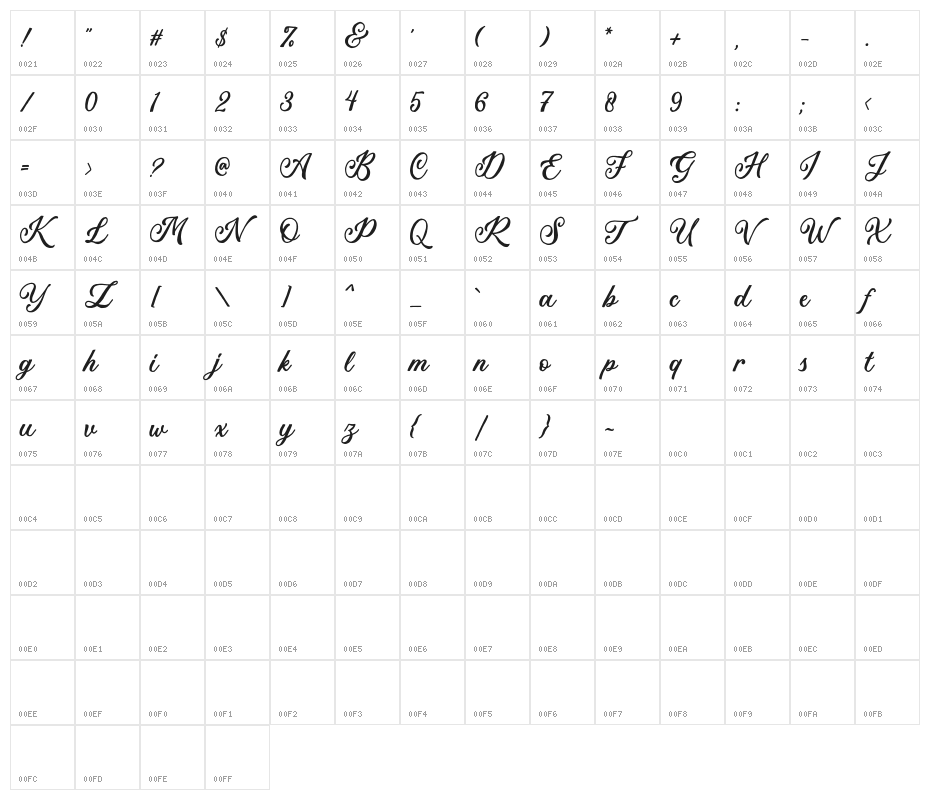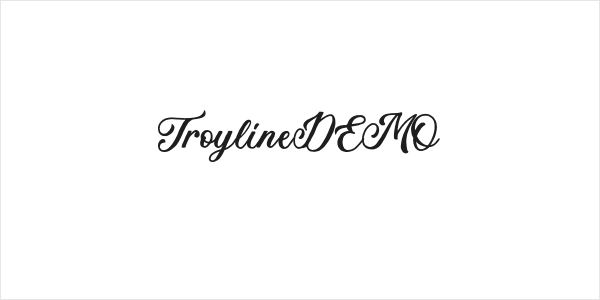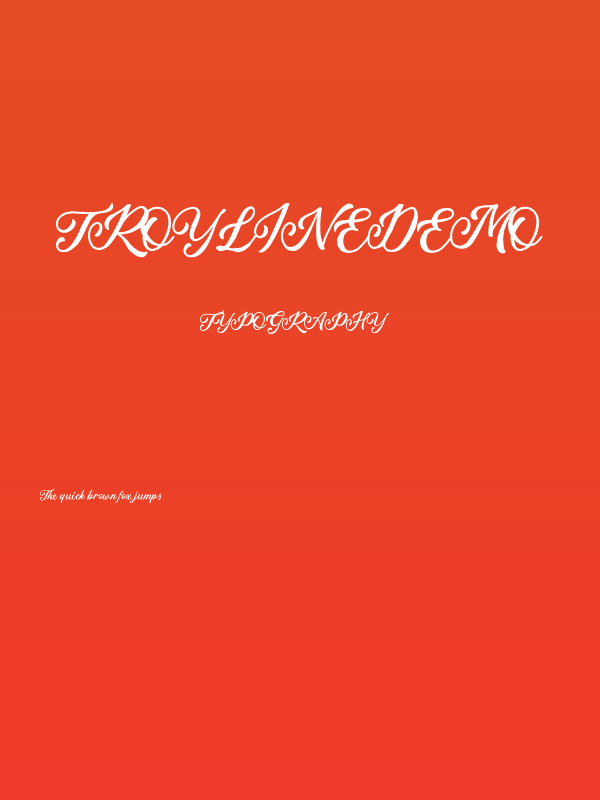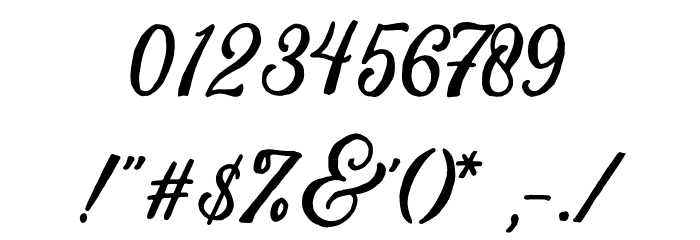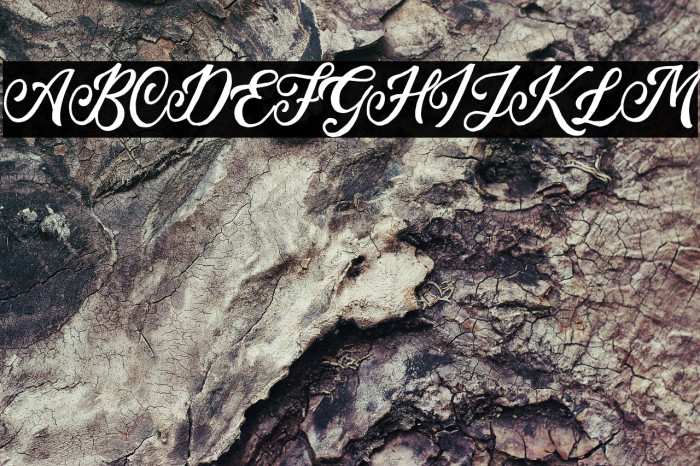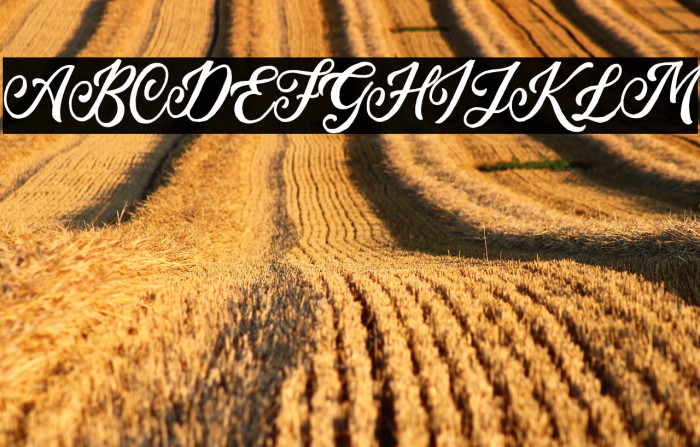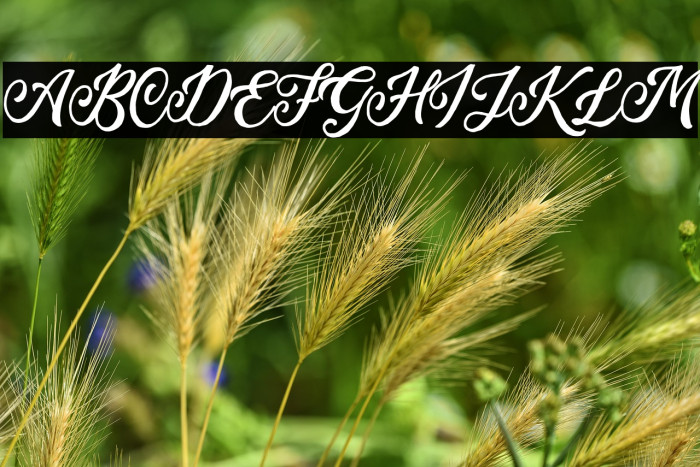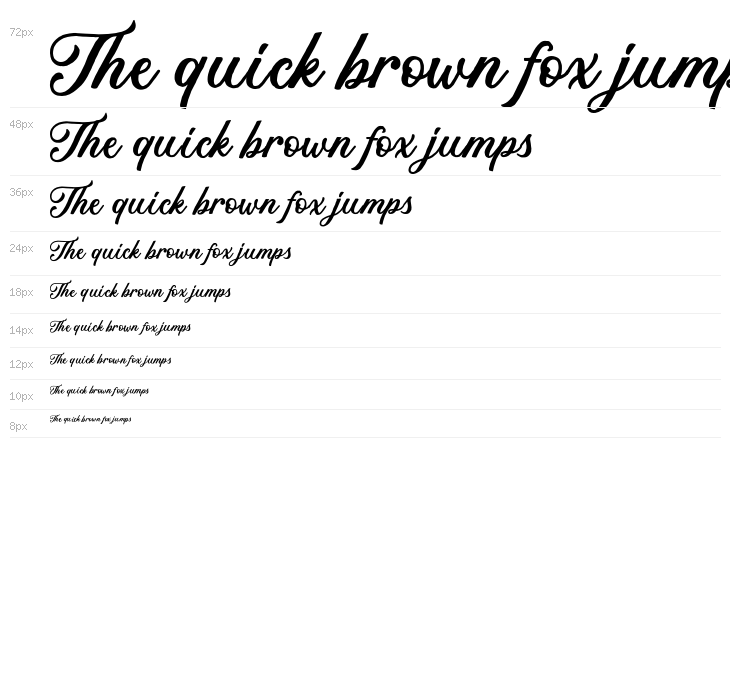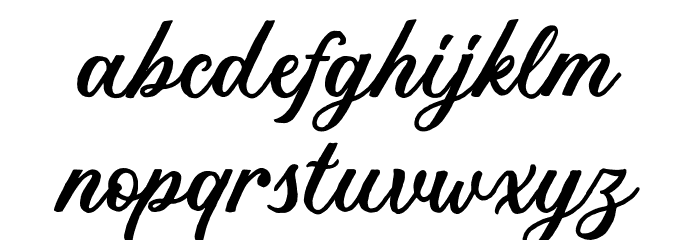
TroylineDEMO Font
TroylineDEMO Description
This elegant script font features a flowing, cursive style with intricate loops and swirls that give it a sophisticated and artistic appearance. The uppercase letters are particularly ornate, with each character exhibiting unique flourishes that enhance its decorative quality. The lowercase letters maintain a consistent style, offering a smooth and connected look that is ideal for creating a cohesive text flow. The numerals and special characters are designed to match the overall aesthetic, ensuring a harmonious appearance across all text elements. This font is perfect for projects that require a touch of elegance and creativity.
| Use Case | Logos, Invitations, Decorative Text |